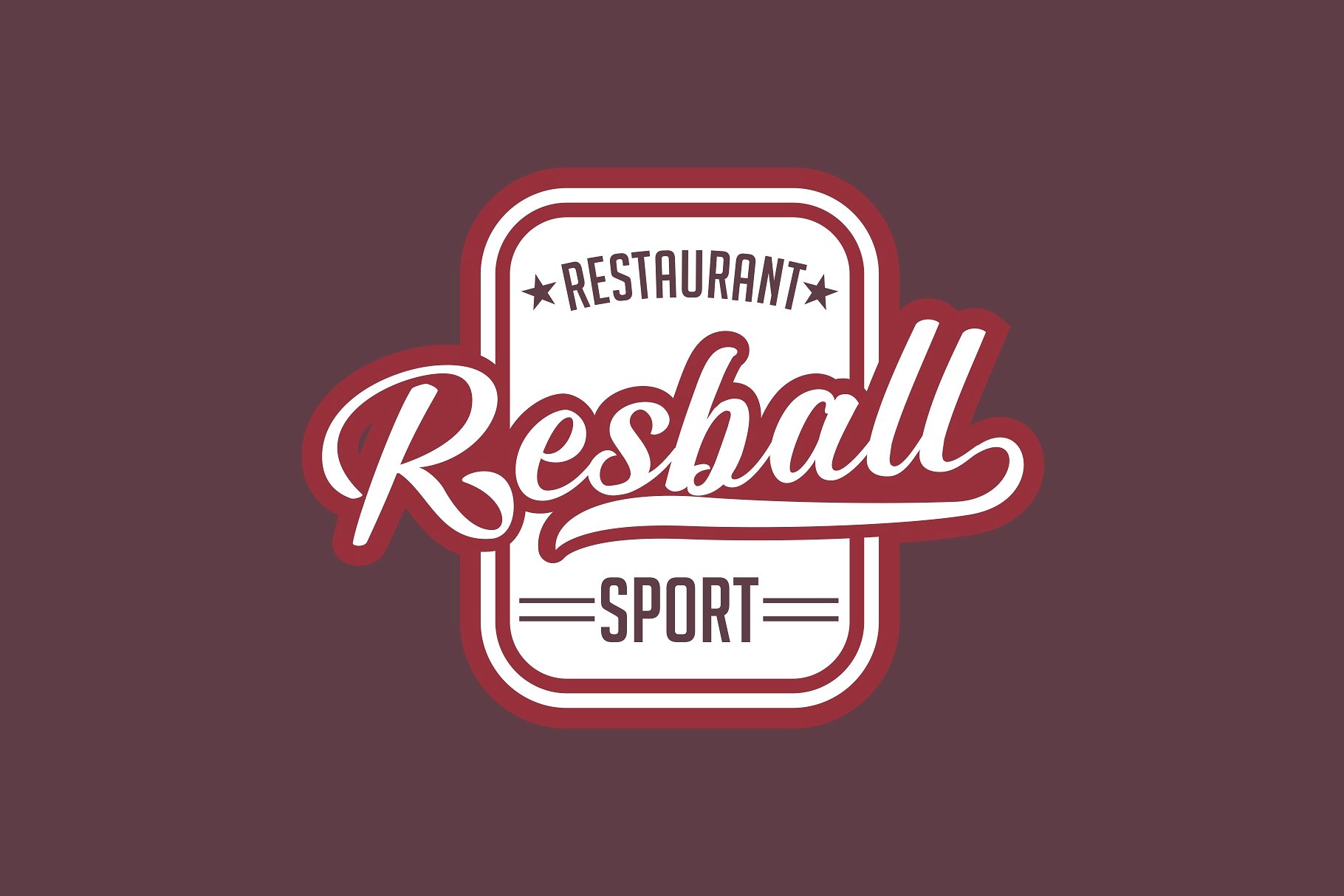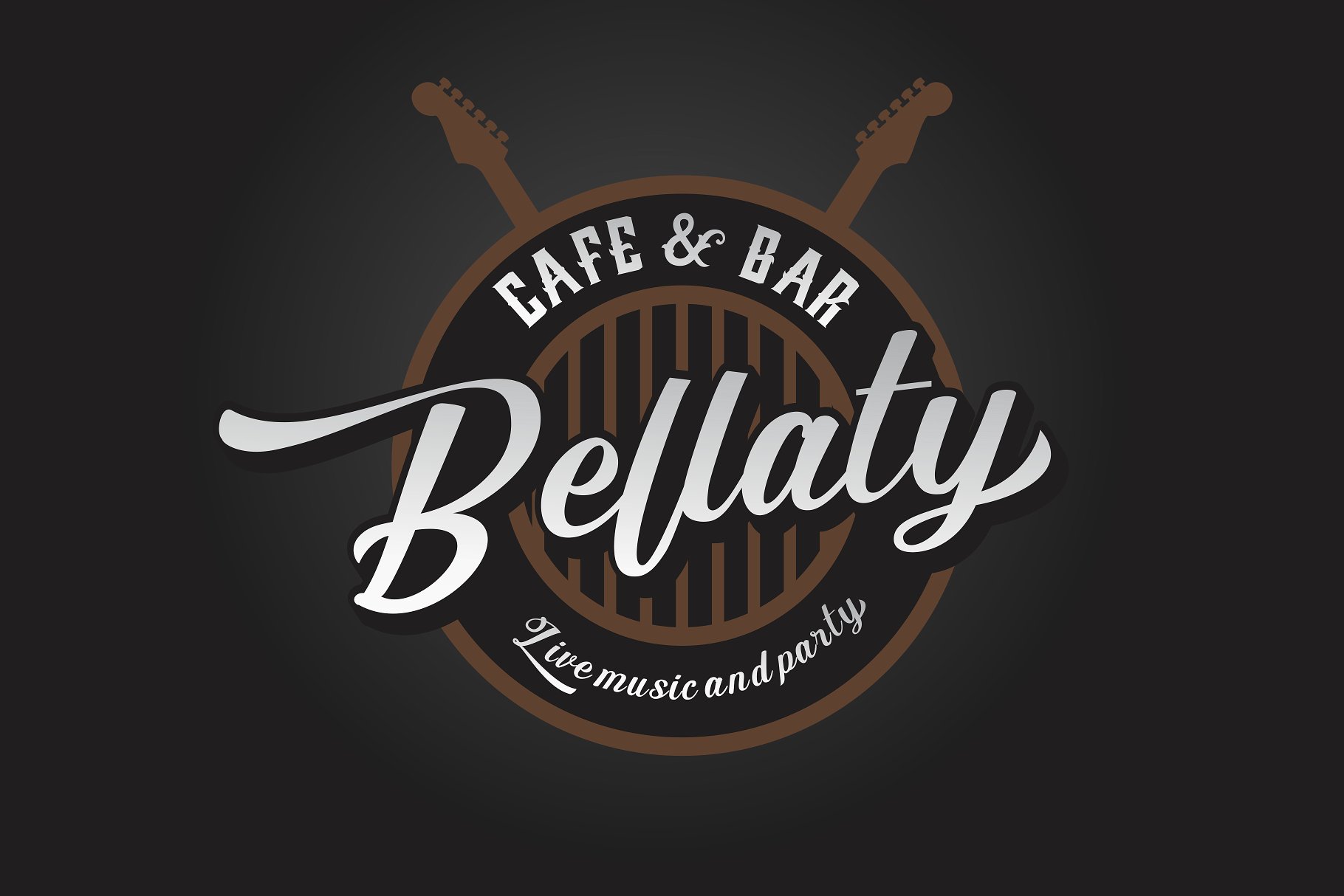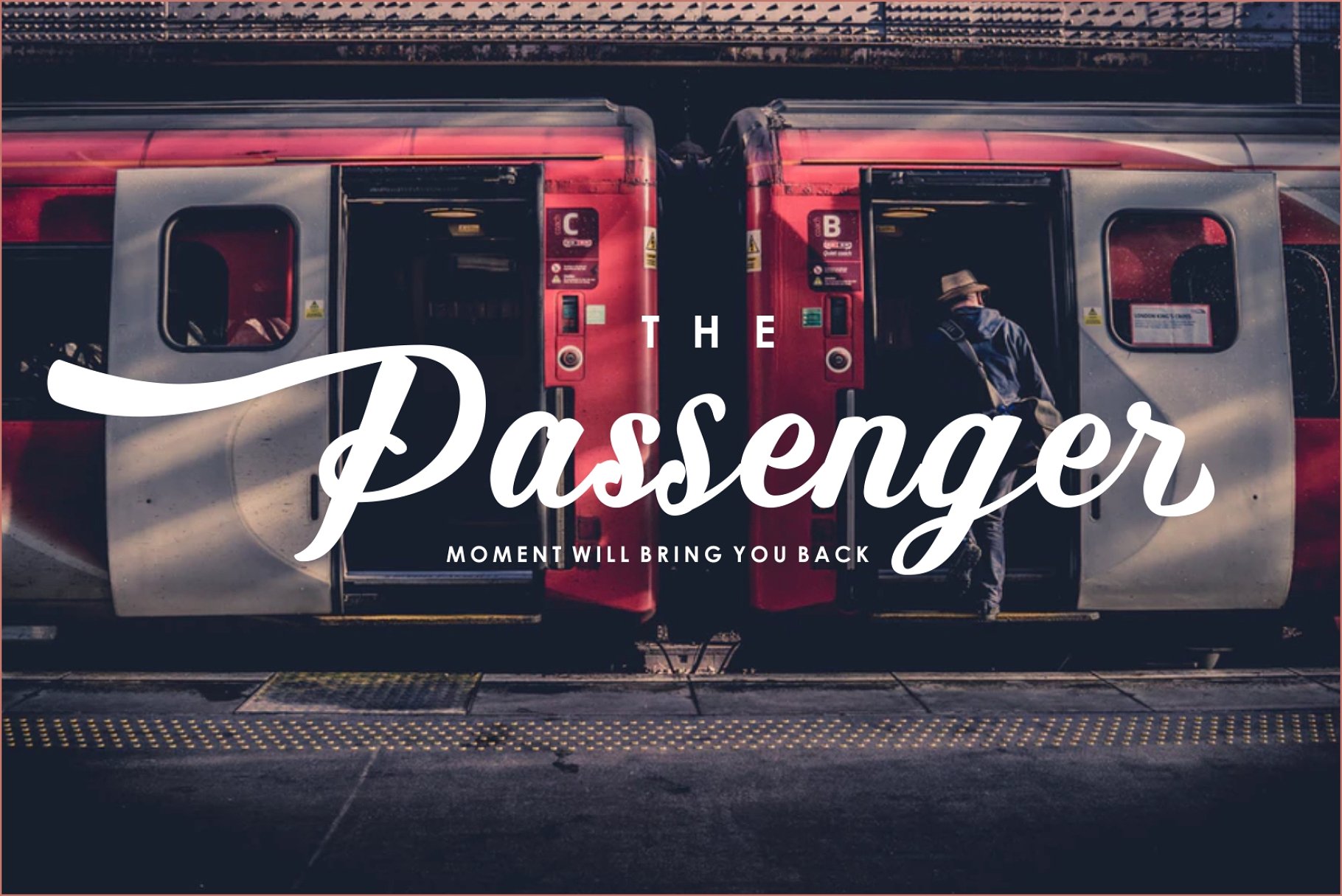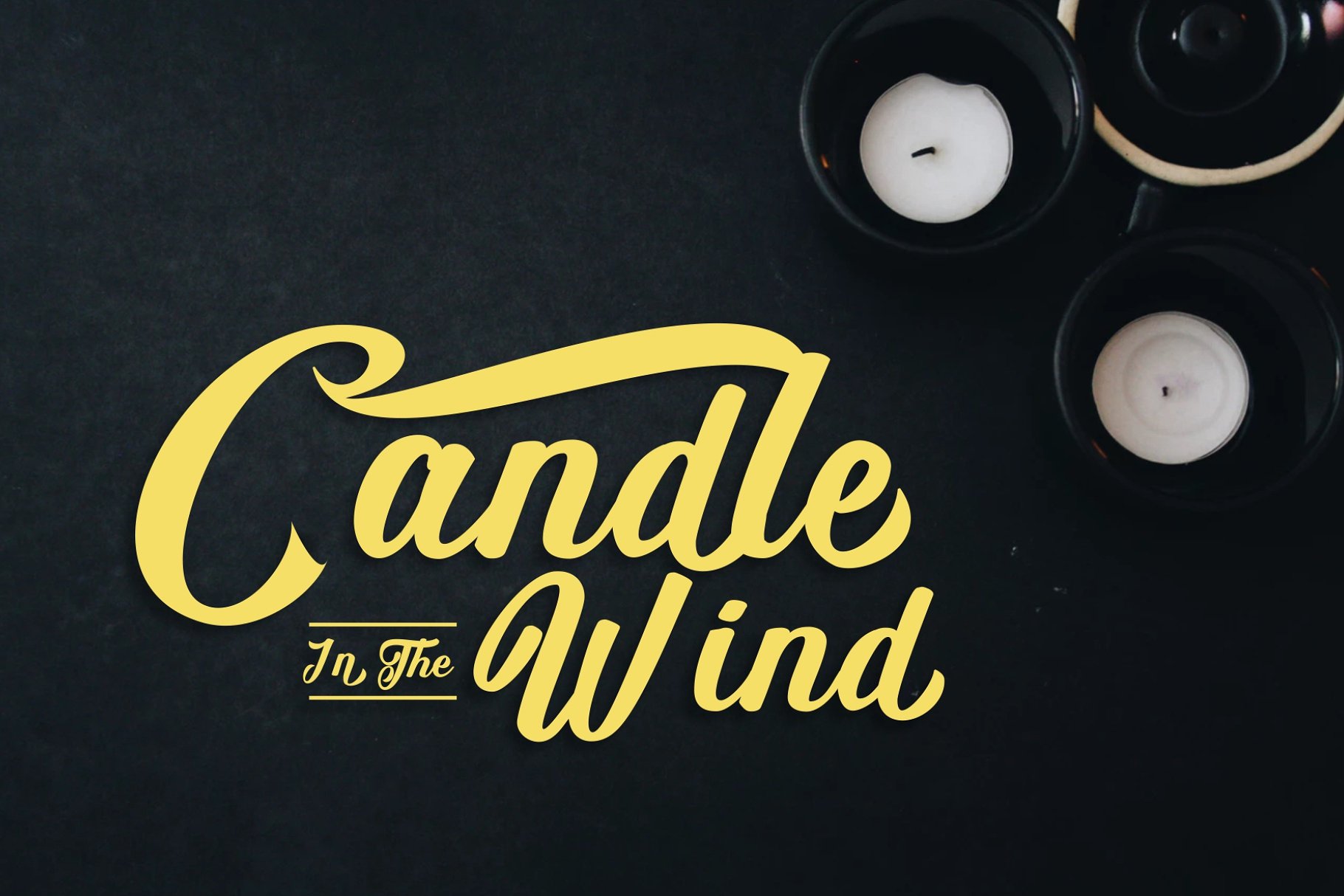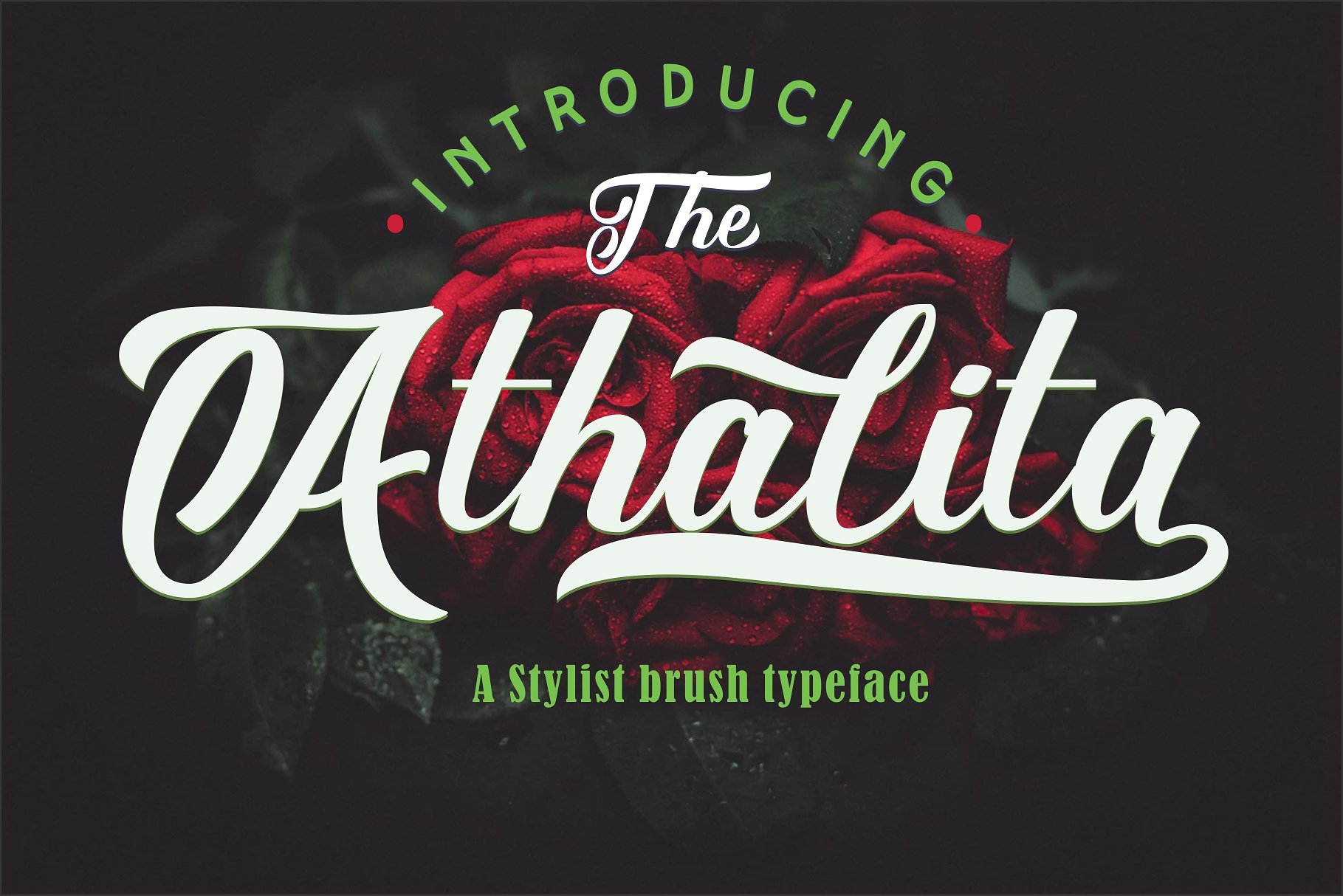
Athalita Brush Stylist Font
Hi designer. A stylist brush typeface. Introducing Athalita Font. A font design with brush stroke style, looks casual, beautiful, charming, trendy but still timeless. can be applied in various designs. Impressive scratches + Opentype feature